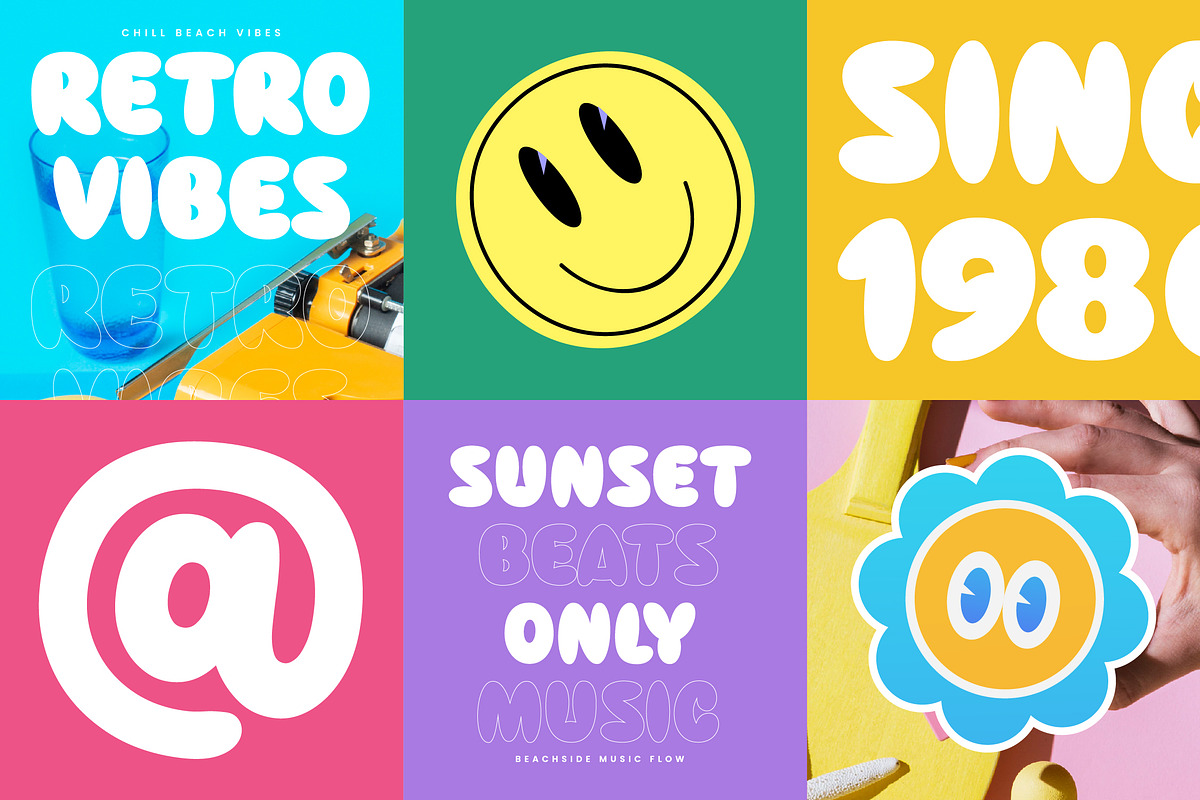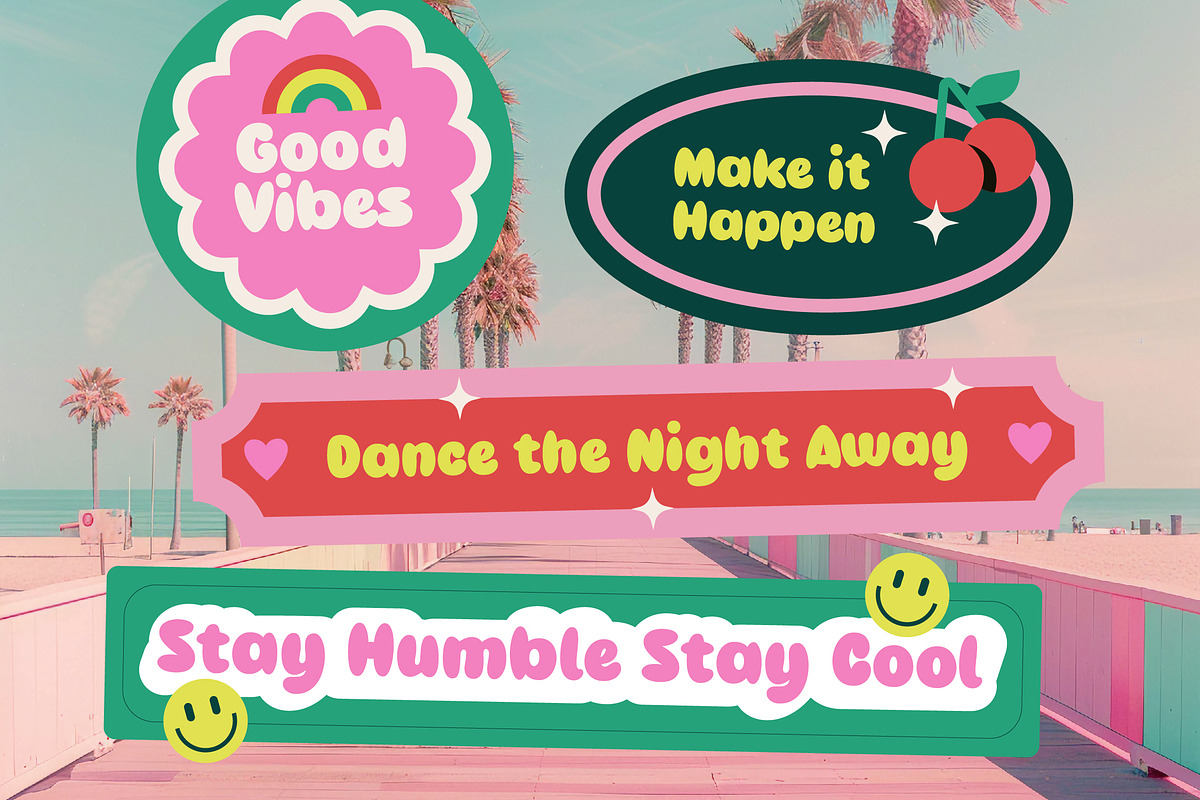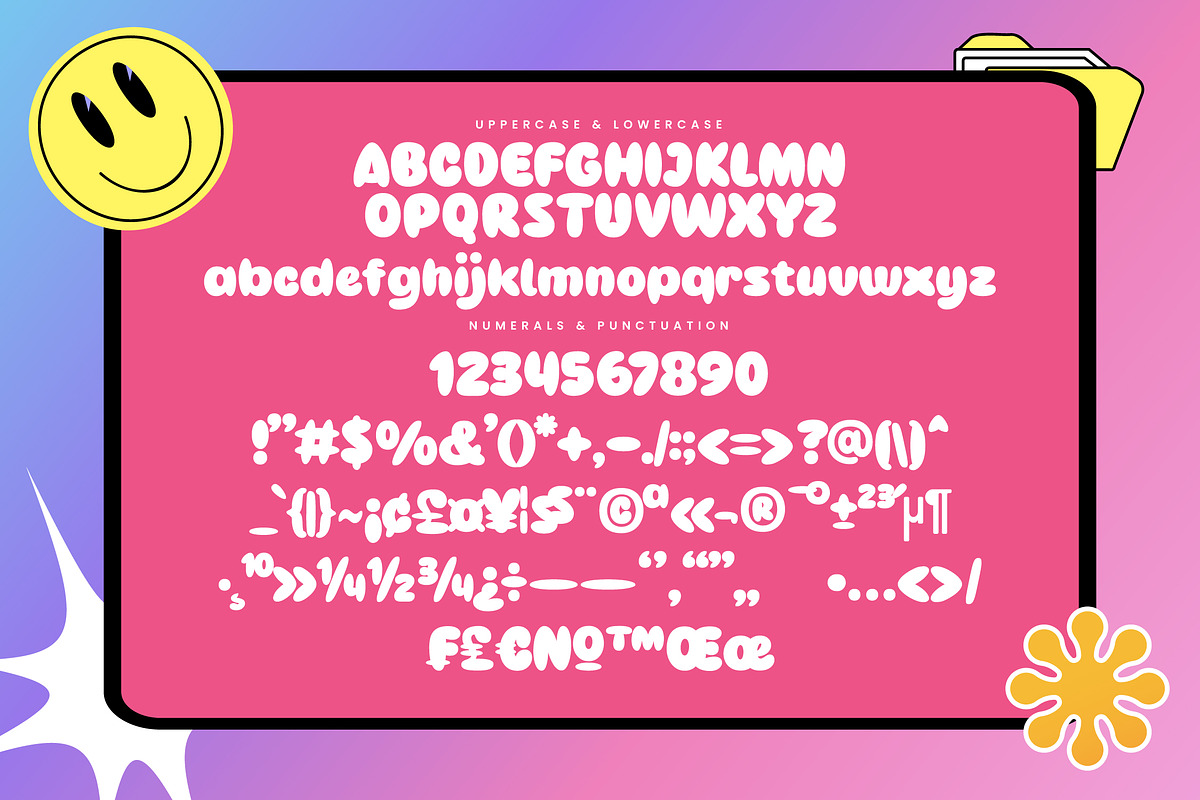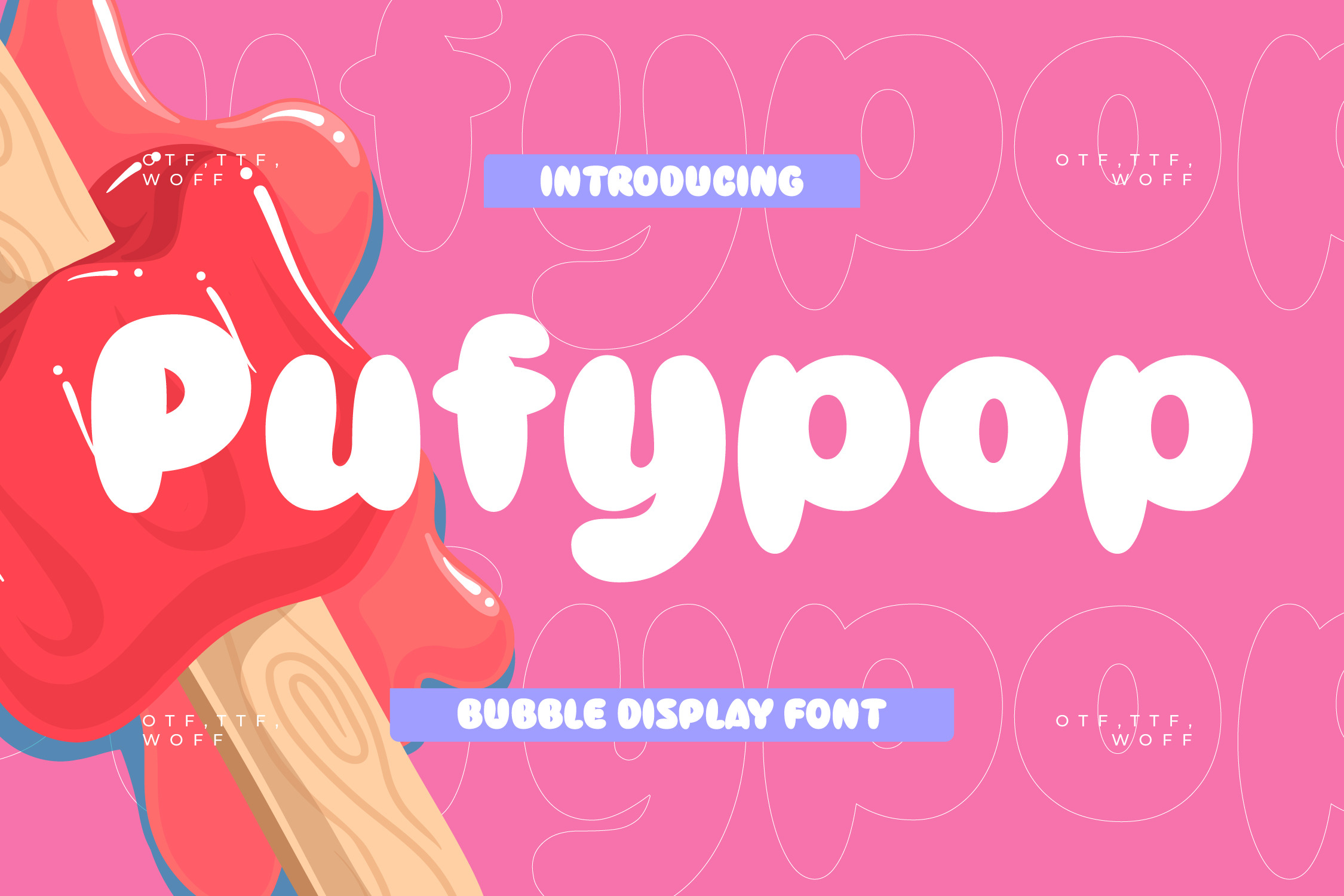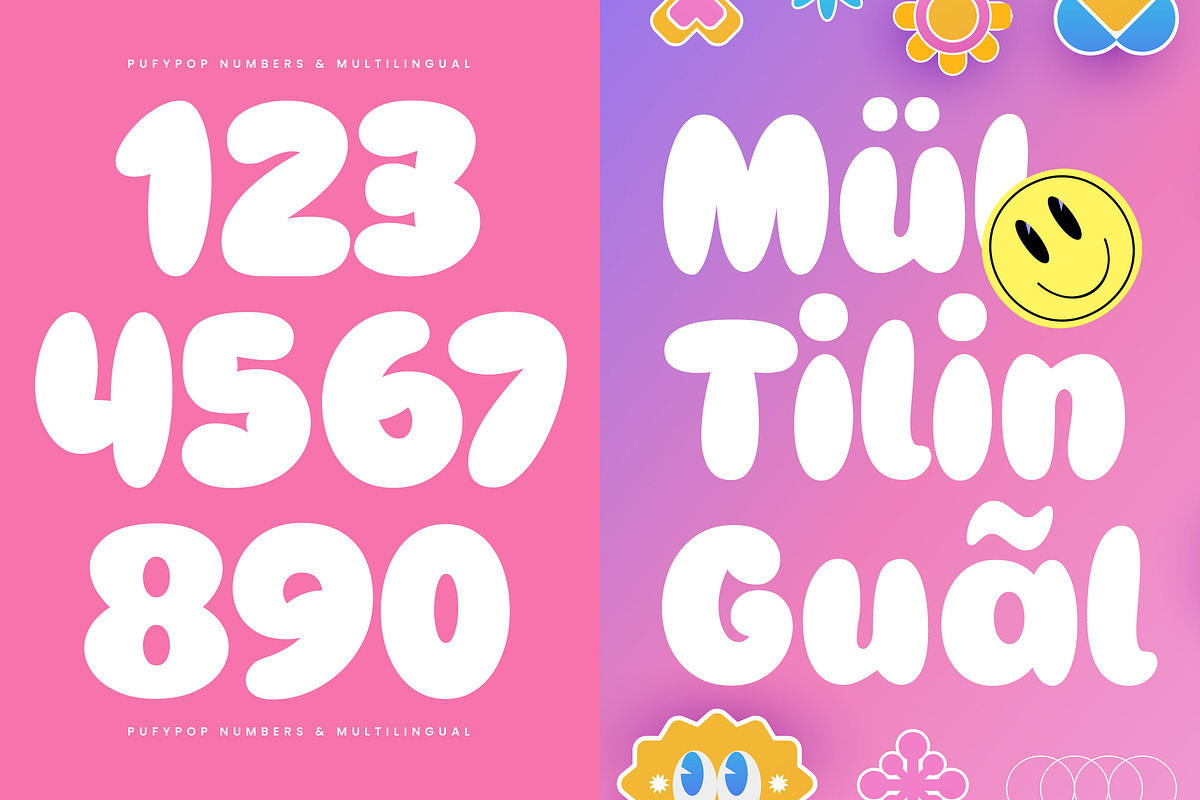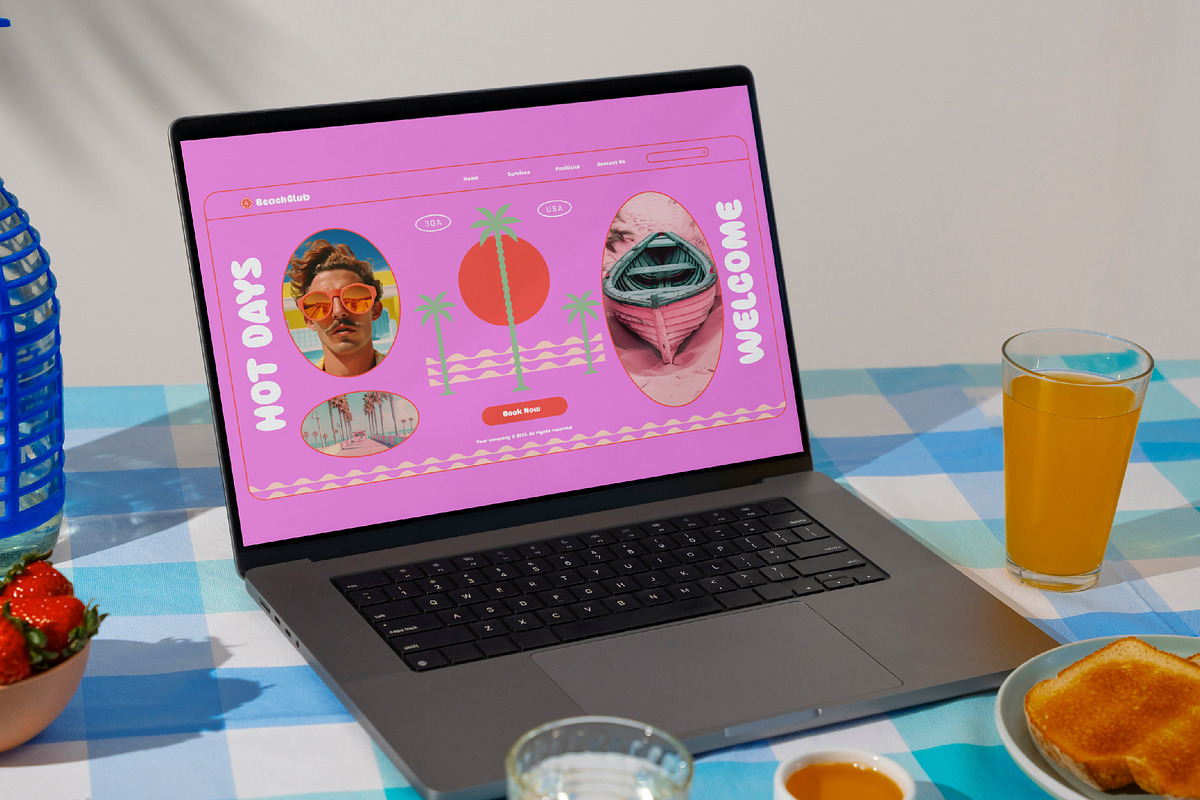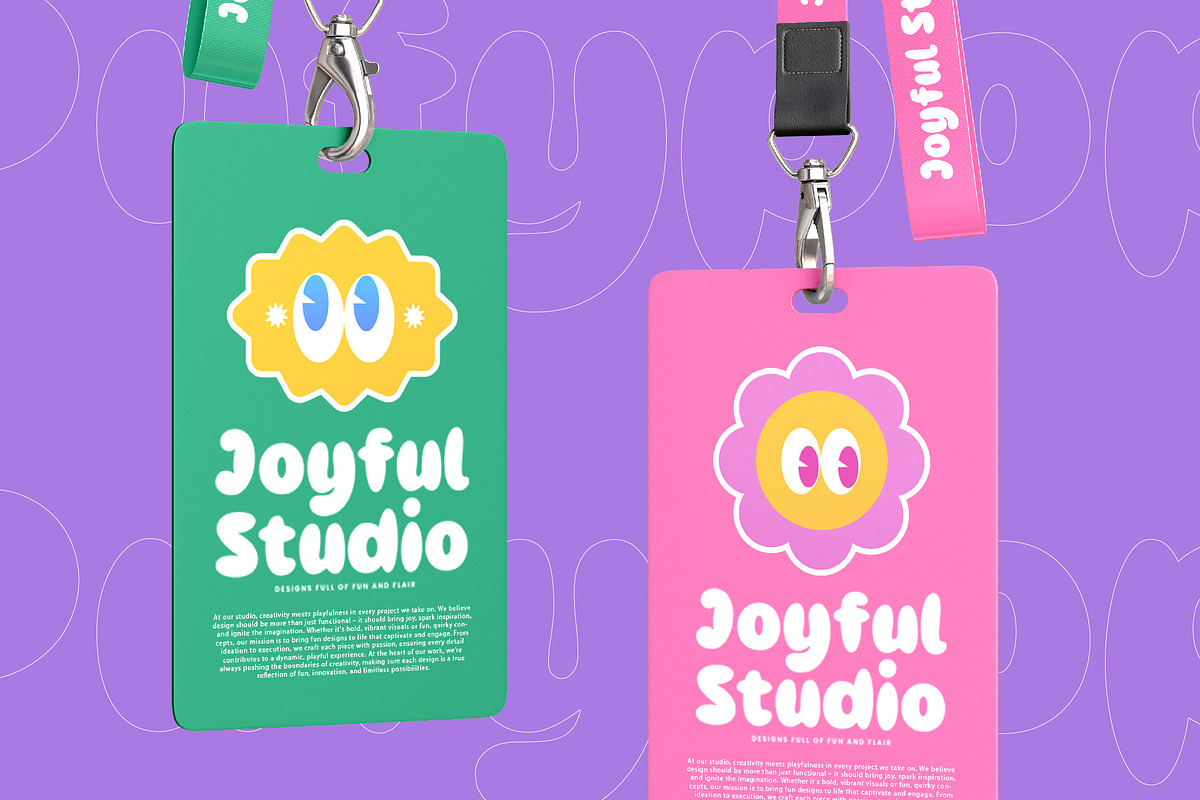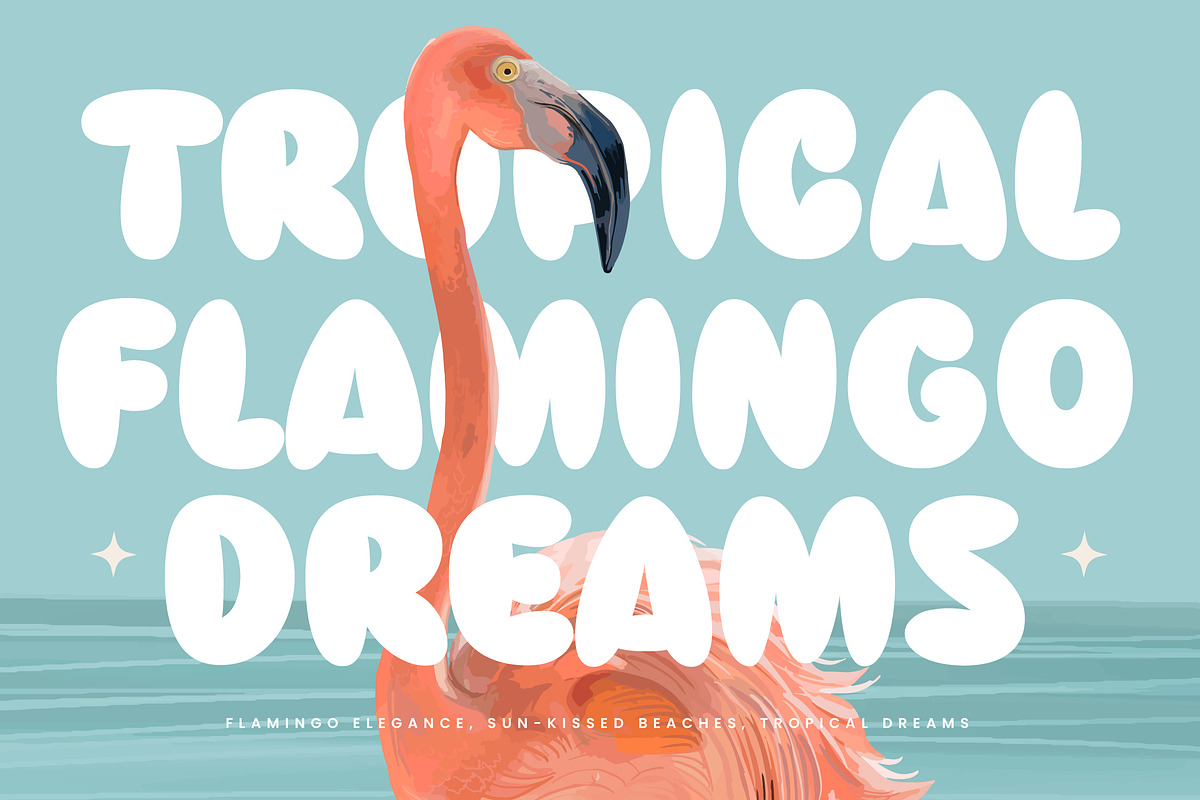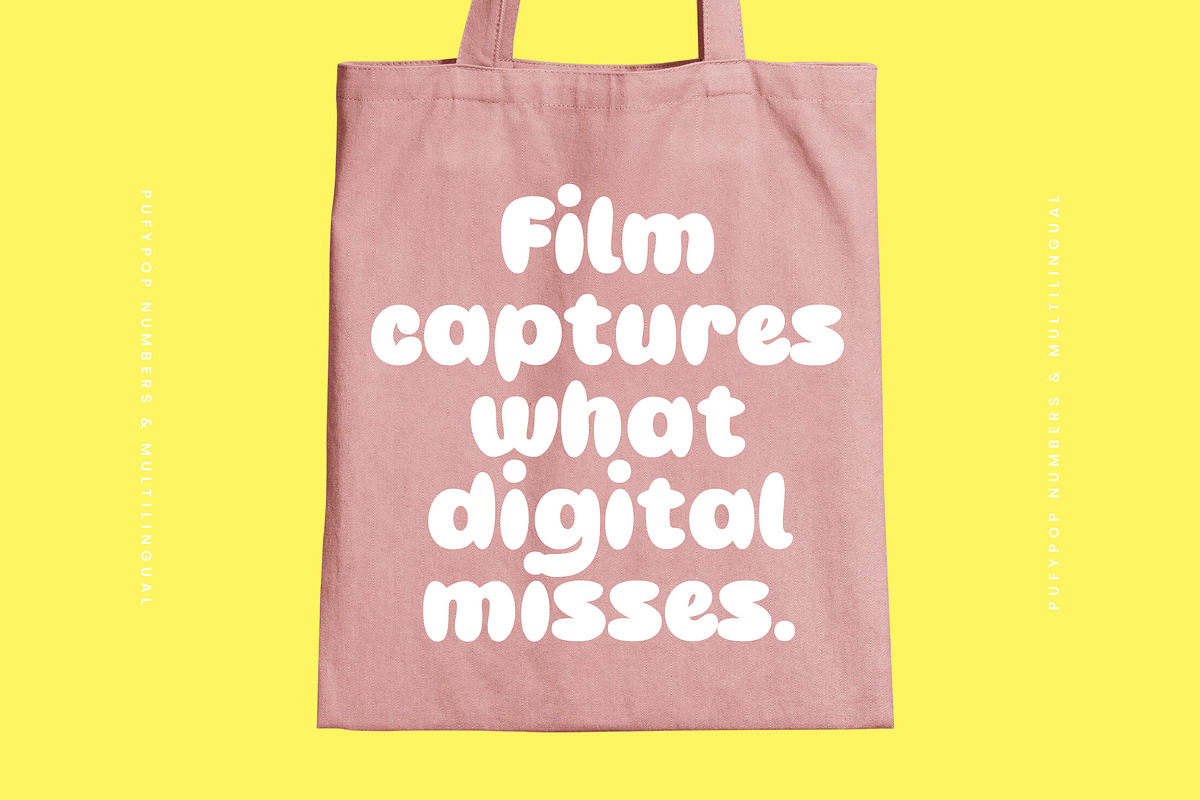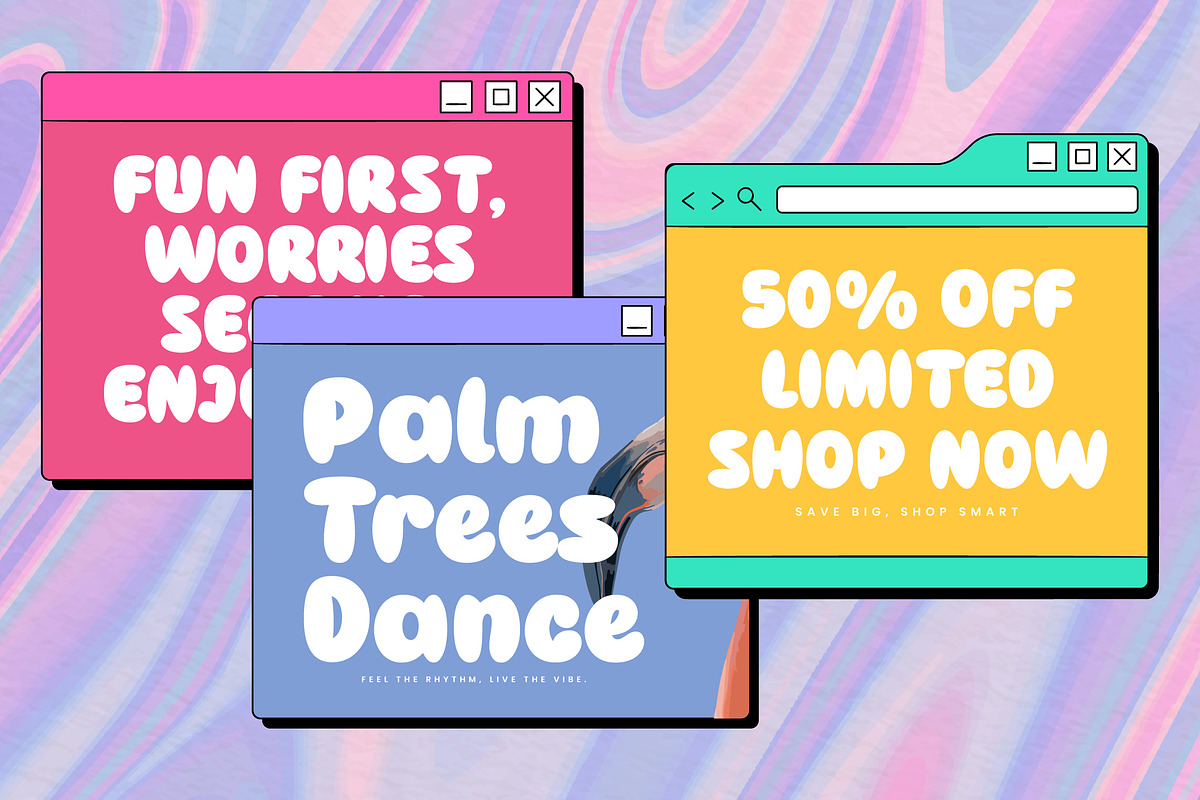
Pufypop Bubble Display Font
Pufypop bubble display font is a unique, modern geometric font with a unique, elegant, modern and geometric style. It is a display font perfect for branding projects, logos, social media posts, product packaging, labels, etc.